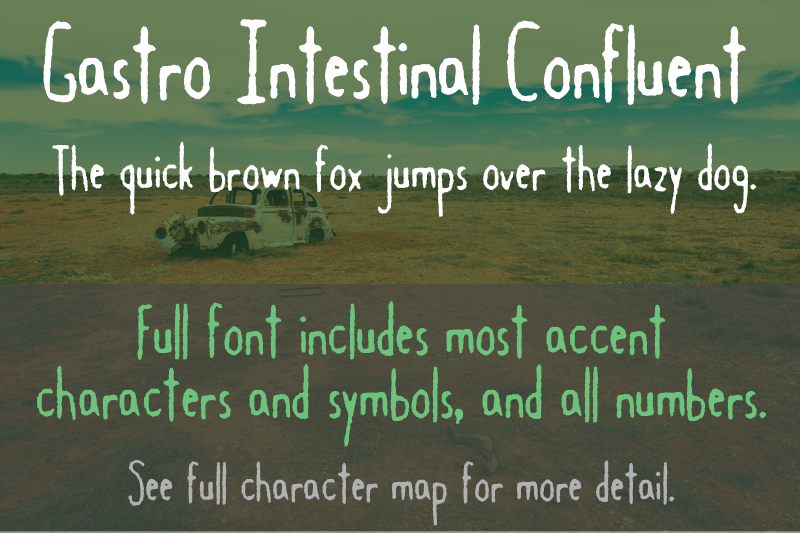
The Gastro Intestinal Confluent font, which is spooky and tall, was a follow-up to an original Gastro Intestinal font released in December 2000. I didn't like the original because it wasn't "solid" enough – too thin and not very legible. Eventually, after making this version in January 2001, I pulled the original altogether. This is a DEMO version of the font. It includes only uppercase and lowercase letters. You can use the demo version for personal use. The full version of the font, which can be purchased very very cheaply at QuickBrownFoxFonts.com, also contains numbers, most puncuation, most accent characters, and many symbols. You can view the full character map at QuickBrownFoxFonts.com. Purchase of the full version entitles you to a full license of the font, with which you can use the font commercially in any project. |